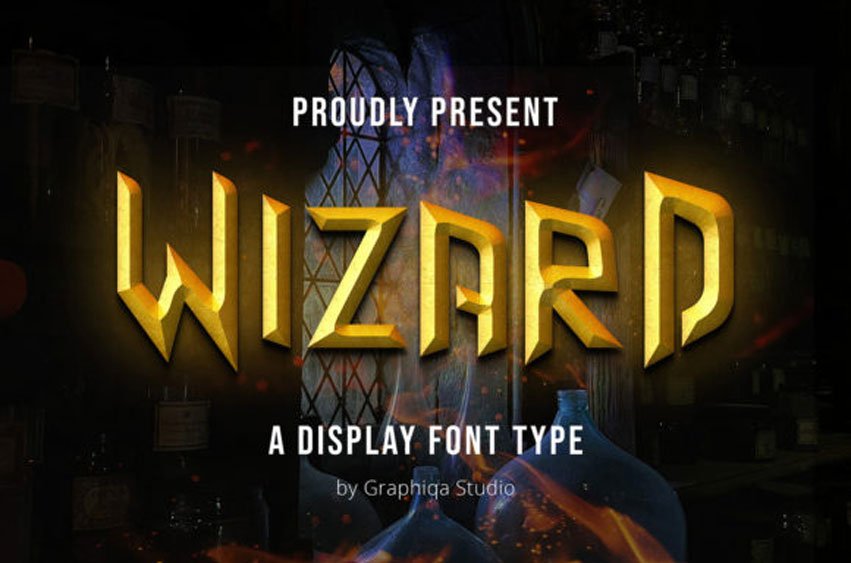
Wizard Font
Wizard Font is a charming and magical display font.
It will elevate a wide range of crafting ideas, from cards, to branding, labels and much more.